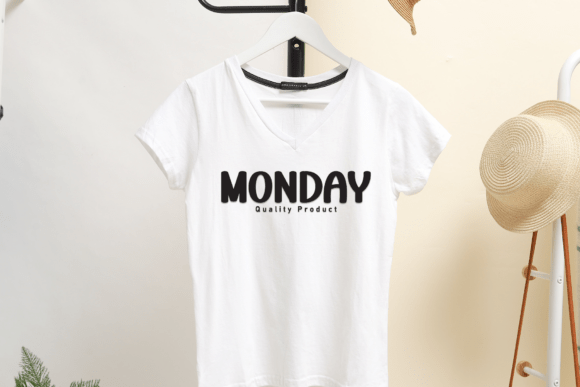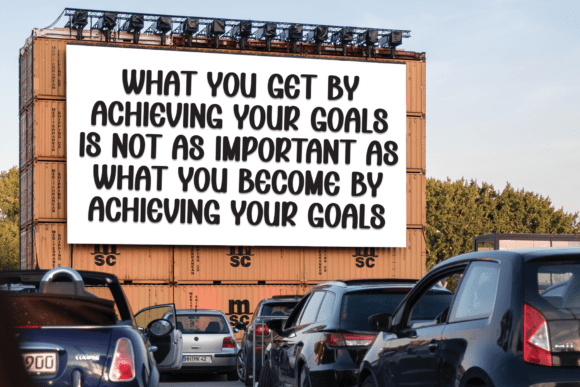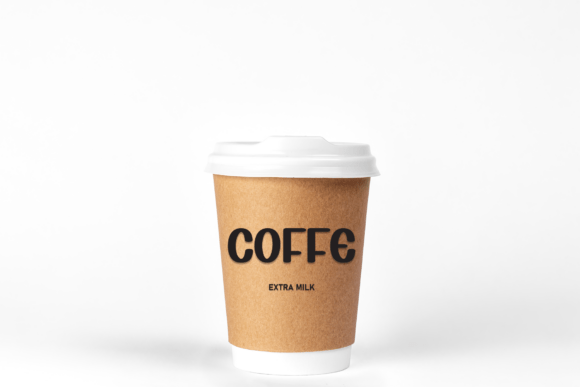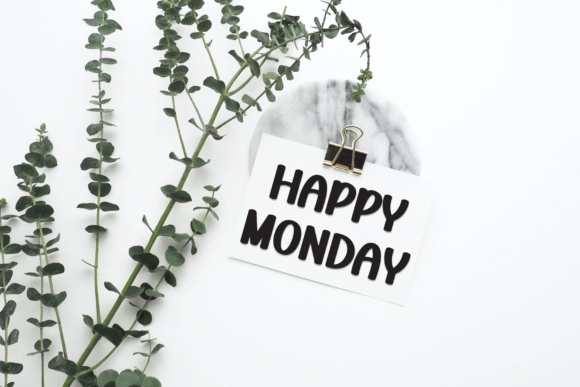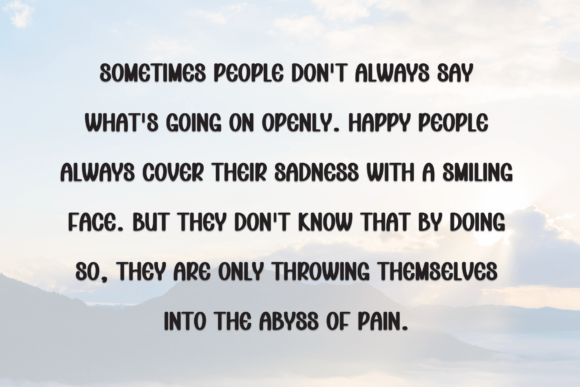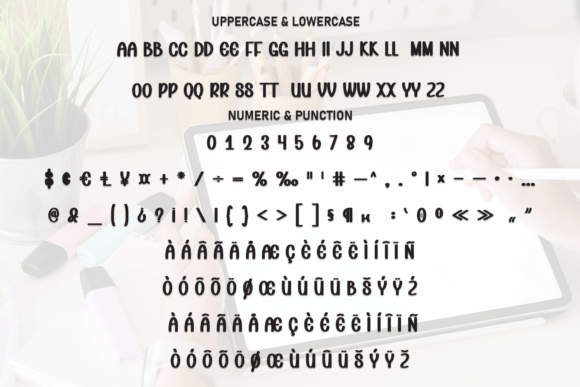
Discover Your Next Design BFF: The Digital Planner Font
As creatives, we’ve all been there – staring at a blank page, searching for the perfect font to bring our project to life. The struggle is real, but what if we told you that your search just got a whole lot easier? Meet the Digital Planner Font, a stunning display font that’s about to become your go-to partner in design crime.
This gorgeous font is designed to add warmth and clarity to your projects, making it perfect for branding, headlines, and everyday designs. With its clean structure and approachable style, the Digital Planner Font is sure to make every message feel genuine and inviting. Whether you’re a seasoned designer or just starting out, this font is a valuable addition to your toolkit – and we can’t wait to show you why.
Digital Planner Font Key Features
- Unique Characteristics: The font features a clean, modern design with a subtle grid system, making it ideal for digital planners, bullet journals, and other organizational tools.
- Character Set: The font includes a comprehensive set of characters, including uppercase and lowercase letters, numbers, punctuation marks, and symbols, ensuring that users have everything they need to create professional-looking digital planners.
Designer Review: Digital Planner Font
Overall, I’d say the Digital Planner Font is a decent choice for digital planners and organizers. ✨ It’s clean, modern, and easy to read, which is perfect for creating a sense of calm and focus in your digital workspace. The font is also highly legible, even at smaller font sizes.
The font has a lot of character, with a unique flair that sets it apart from more generic fonts. ✨ The designer has clearly put thought into the design, and it shows in the small details, like the subtle curve of the letter ‘a’ and the bold stroke of the letter ‘b’.
- ⚠️ The font may not be ideal for very long blocks of text, as the spacing between lines can become a bit cramped.
- ⚠️ Some users may find the font’s unique flair a bit too busy or distracting, particularly in certain color schemes.
- ⚠️ The font is not particularly versatile, and may not be suitable for a wide range of applications beyond digital planners and organizers.
While the Digital Planner Font may have some limitations, I think it’s a solid choice for digital planners and organizers who value a clean, modern aesthetic. With a bit of experimentation and tweaking, I think it could be a great addition to many digital workspaces.
Tips for Getting the Most Out of the Digital Planner Font
Use a consistent font size and style throughout your digital planner to create a cohesive look. Experiment with different font colors and backgrounds to add visual interest. Use the digital planner font to create sections, headings, and subheadings to organize your content.
The digital planner font is ideal for creating digital planners, bullet journals, and other organizational tools. It’s also great for creating printable art, quotes, and other decorative elements. Use the font to add a personal touch to your digital creations.